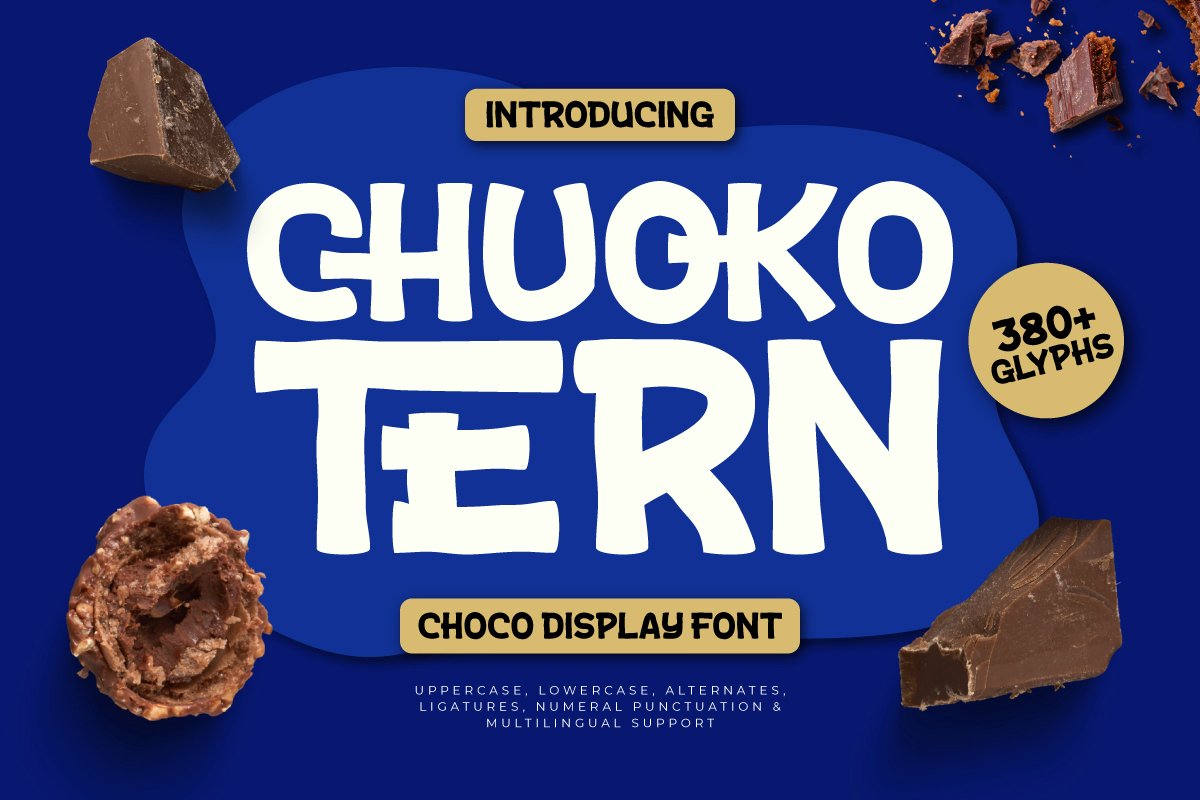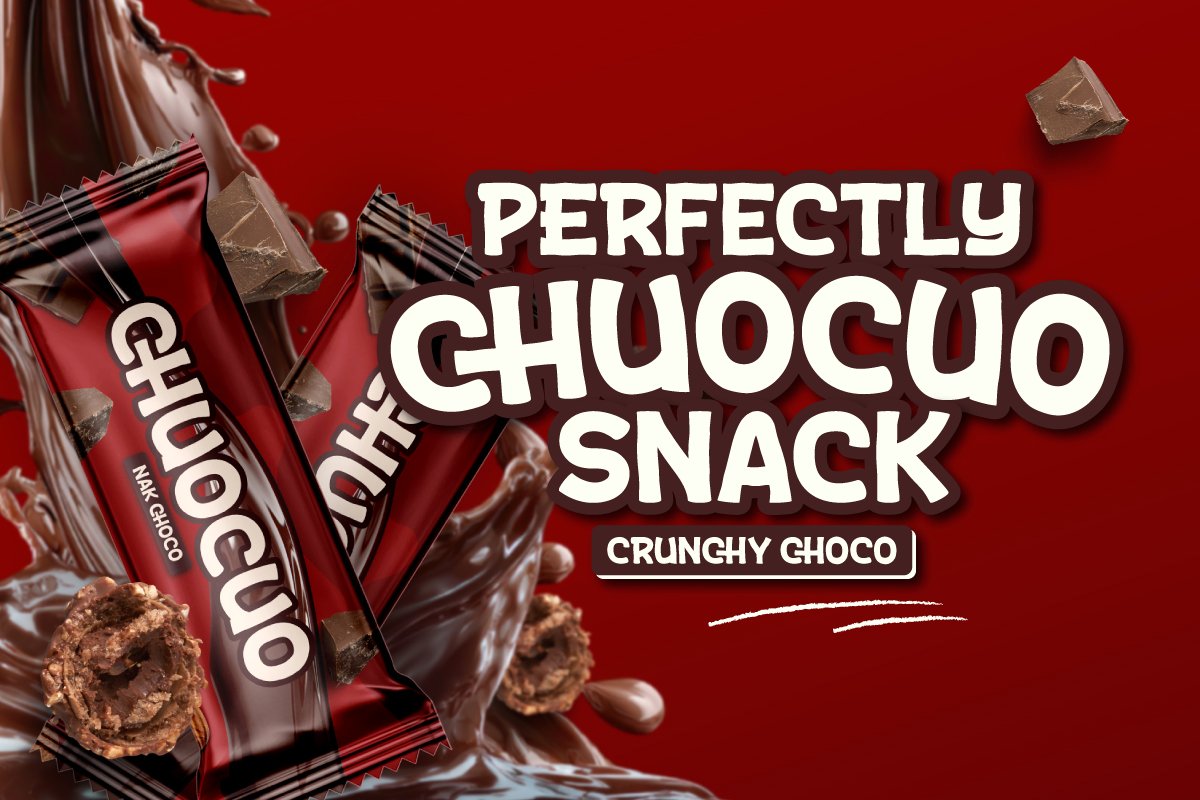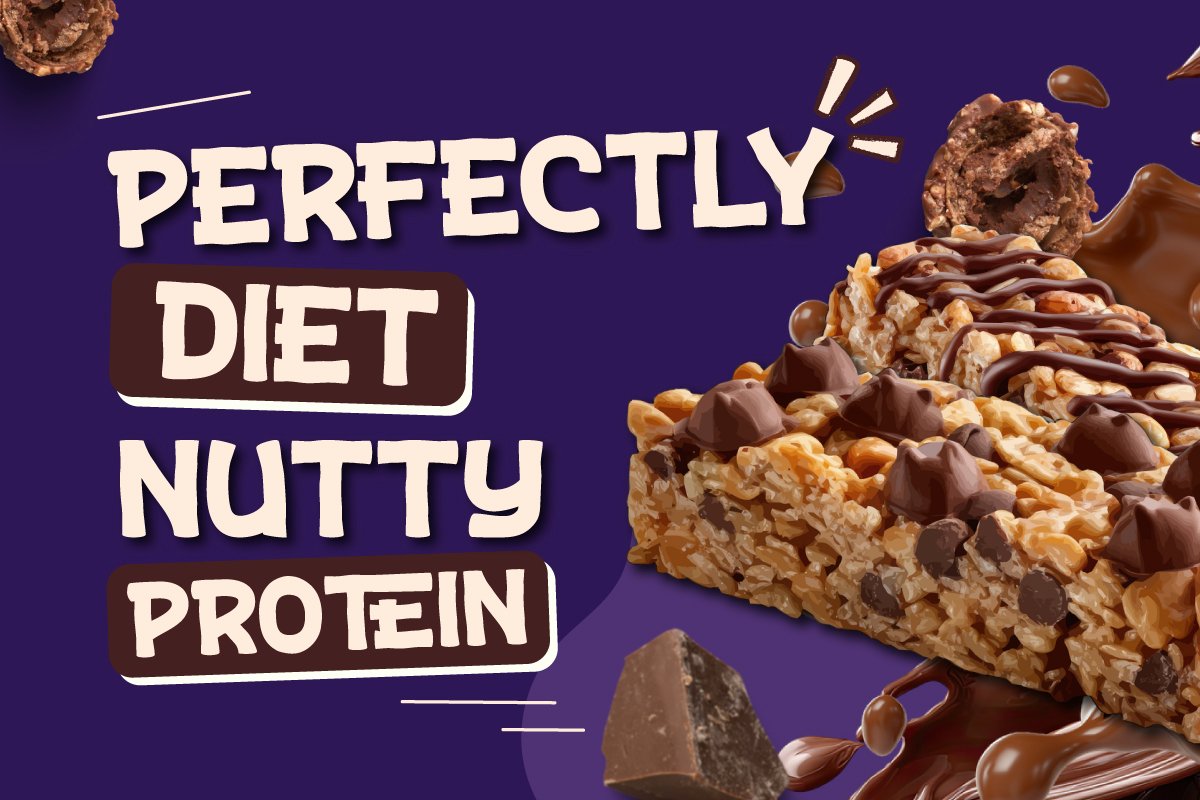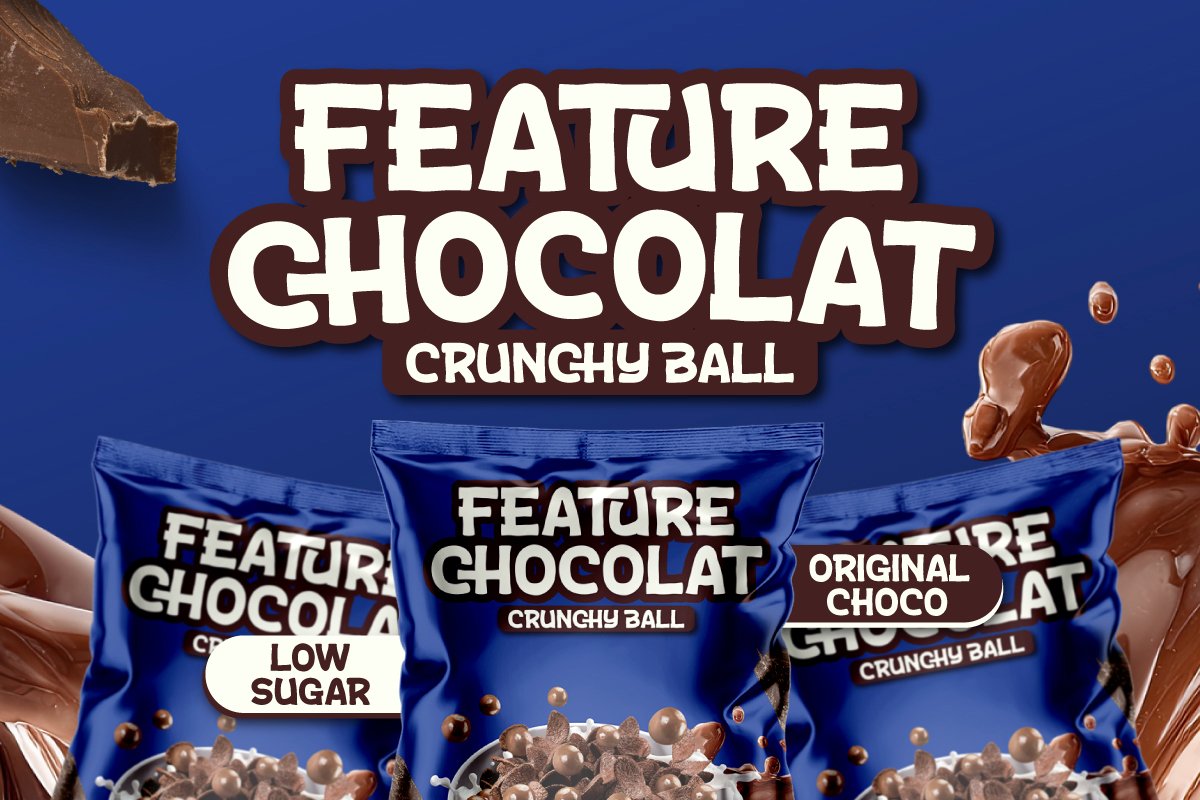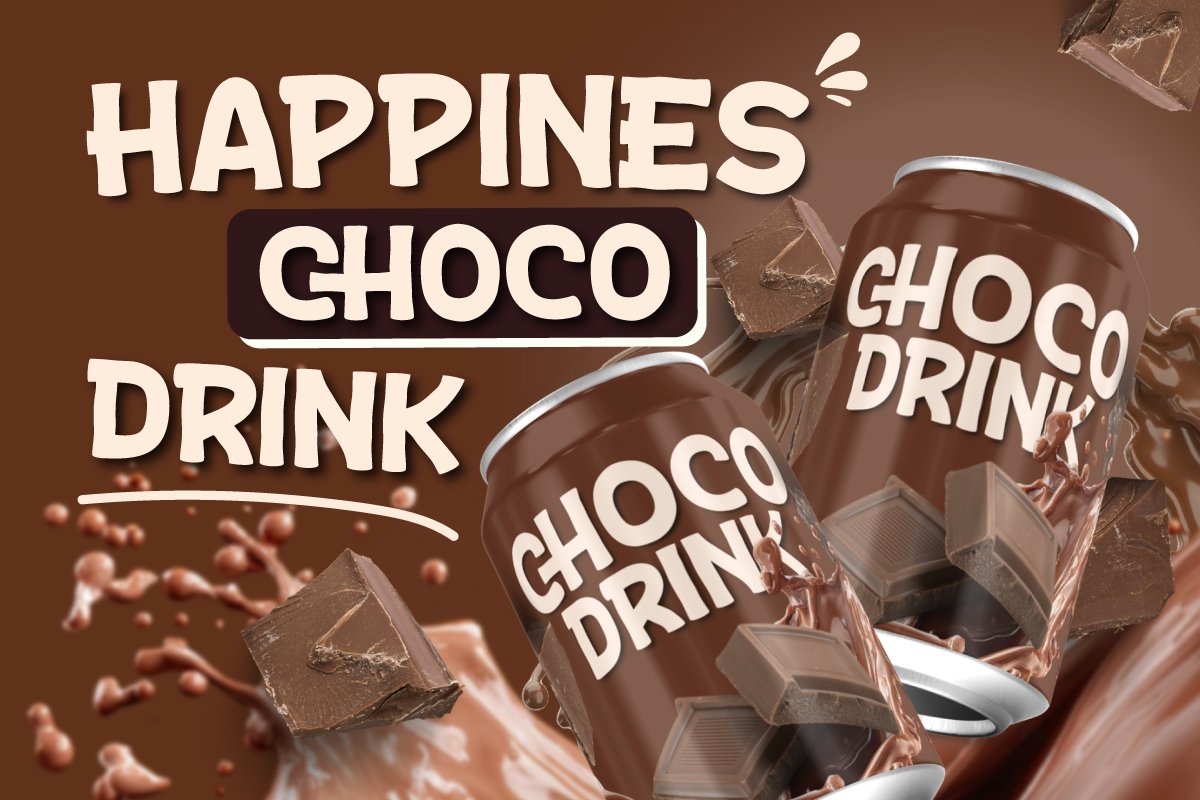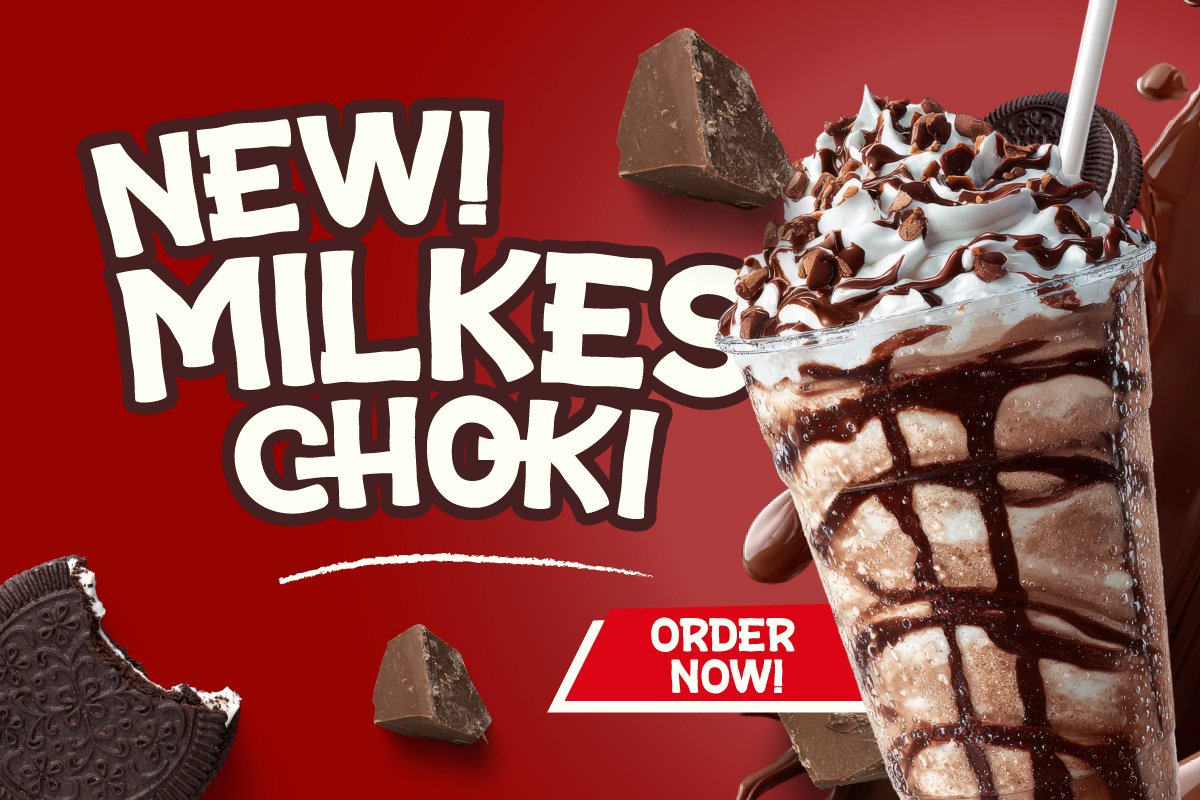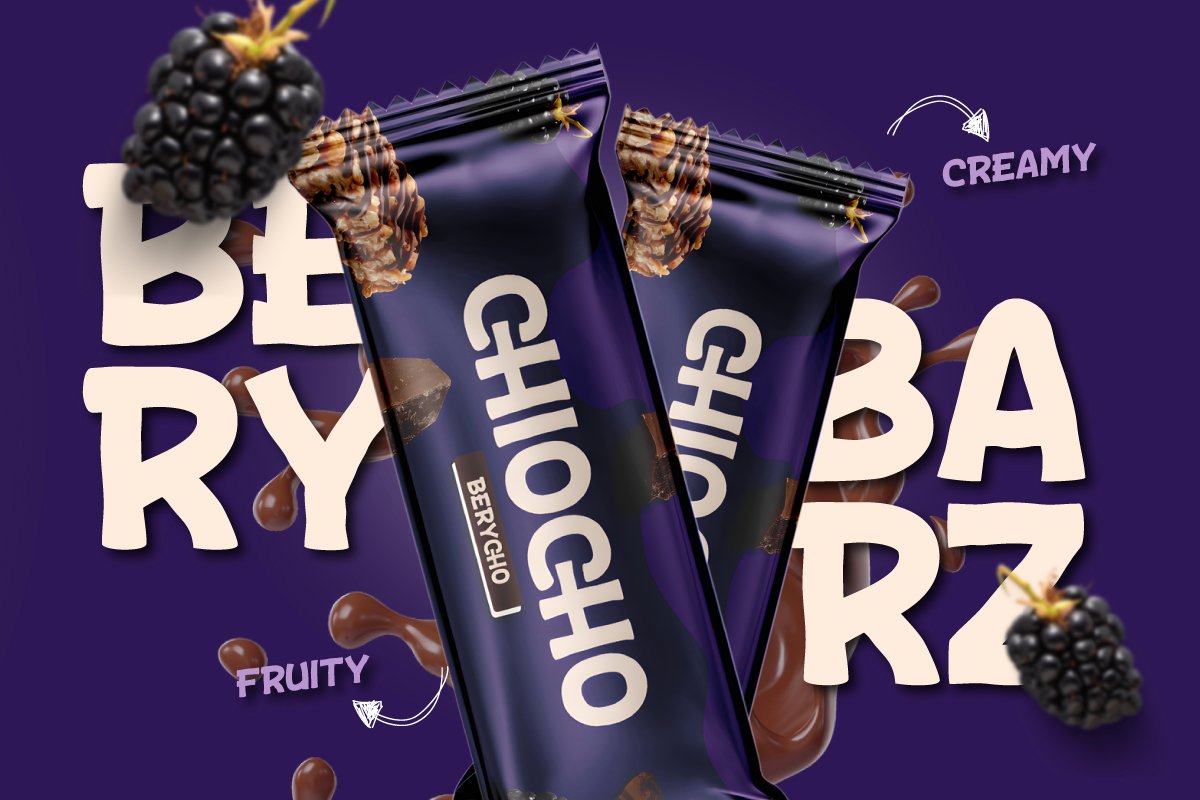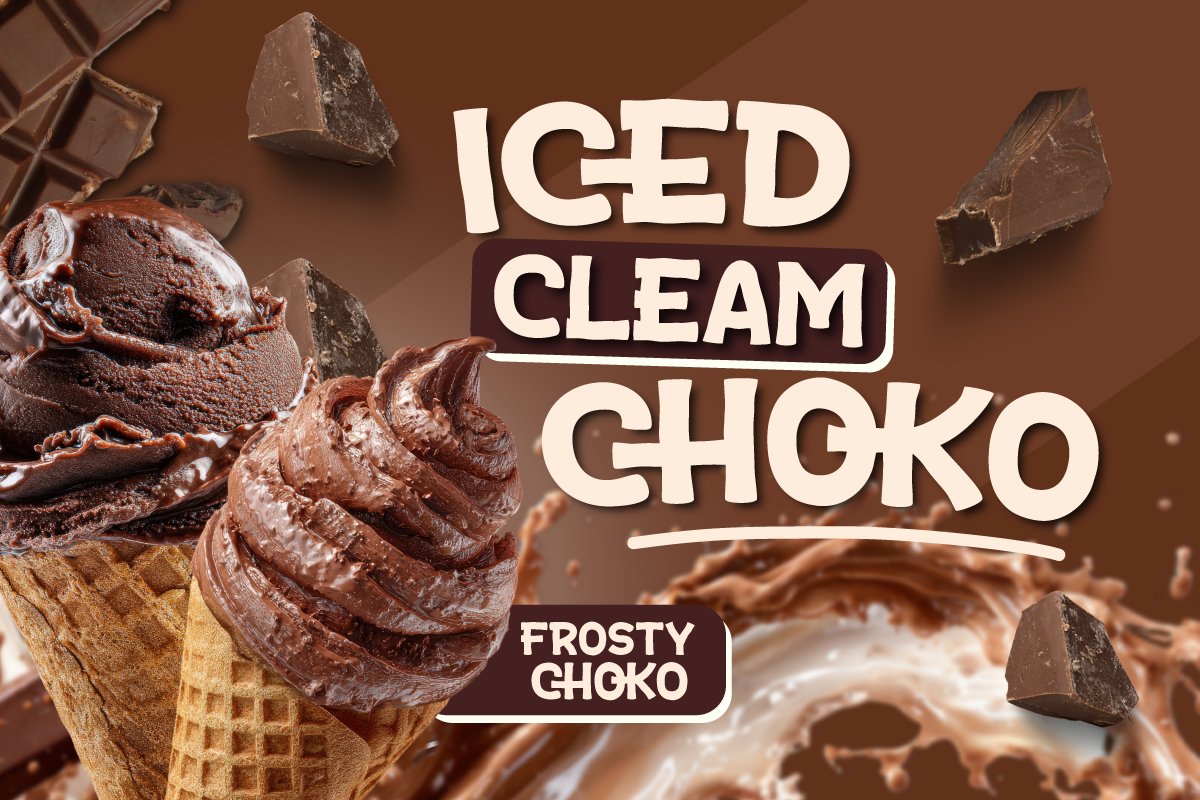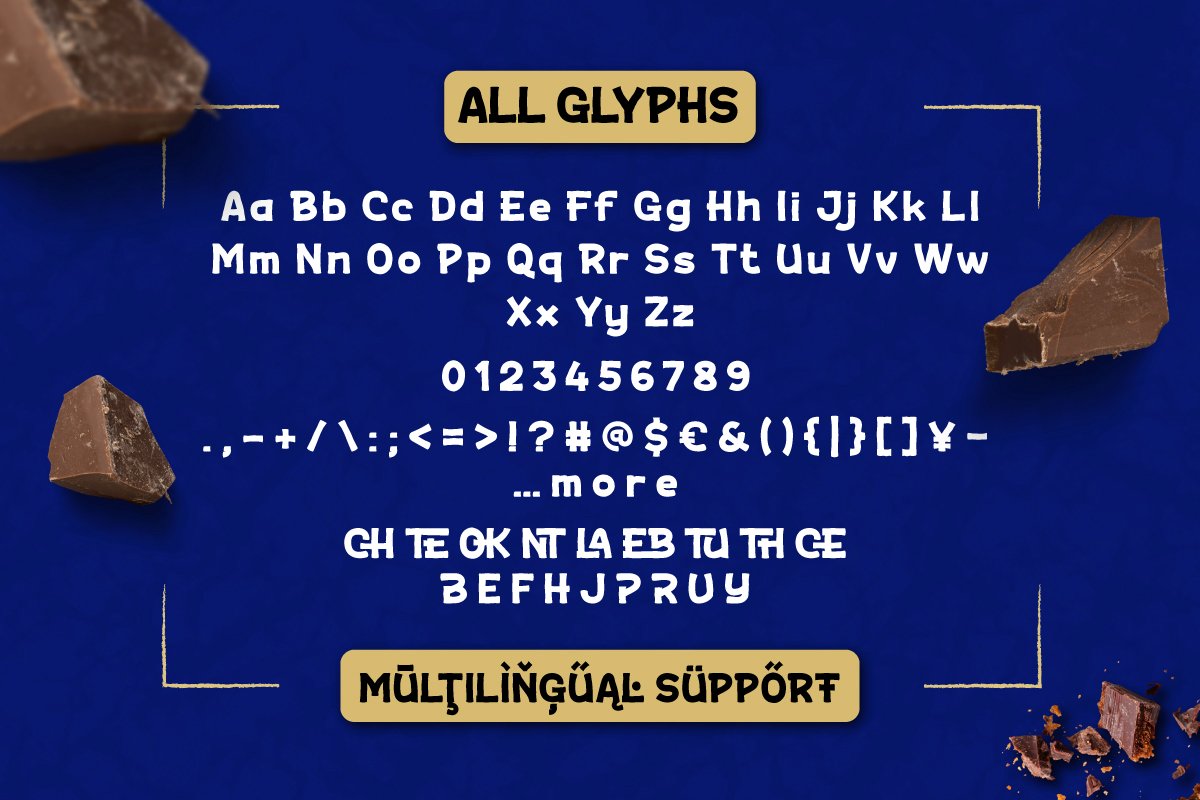
Chuoko Tern – Choco Display Font
Chuoko Tern is a Choco Display Font typeface designed to bring visual identities to life within the F&B (Food & Beverage) industry. Featuring bold letterforms and slightly irregular organic edges, this font represents the texture of chocolate bars and sweet treats. Its characteristics are ideal for products in the Snack & Confectionery sector aiming to highlight an appetizing and authentic impression.
The font’s anatomical structure prioritizes high readability with a modern handmade feel, making it a reliable solution for Chocolate Bar packaging and artisan product labels. Highly relevant to Daily Break-time Snack themes, Chuoko Tern balances cheerful visual appeal with the professionalism of retail product design. Each character helps create a strong information hierarchy on competitive store shelves.
As an expressive culinary typography solution, Chuoko Tern is highly effective for promotional posters, bakery menus, and dessert-themed social media content. Its ability to create memorable branding helps products appear more characterful to consumers. This font is a smart choice for designers seeking an Appetizing Display Font aesthetic to enhance the visual appeal of daily products